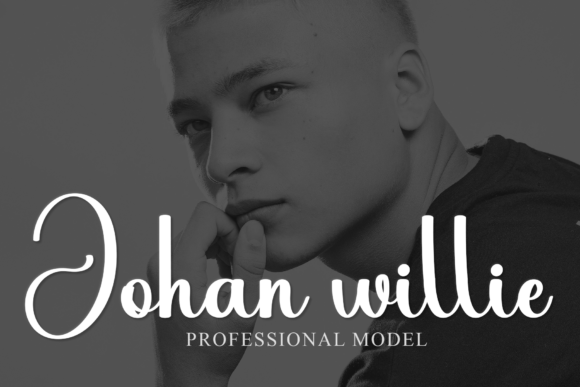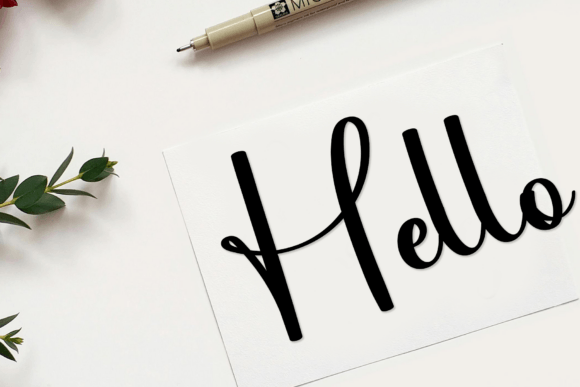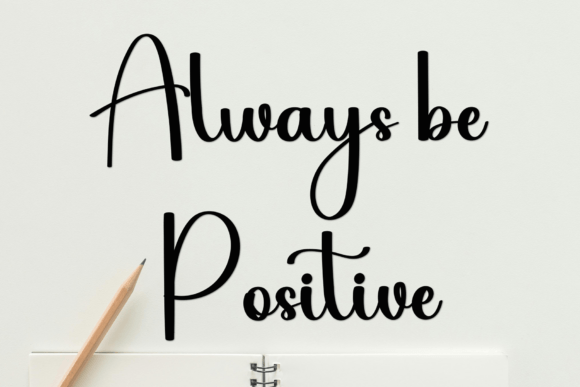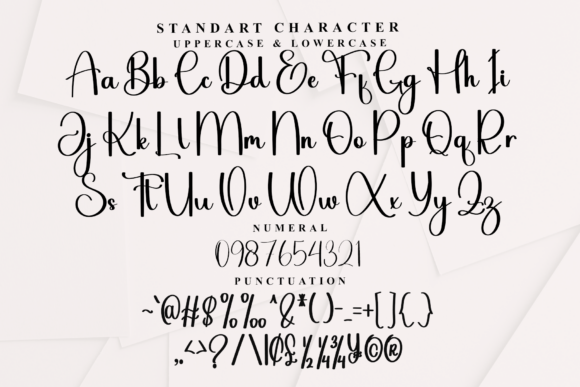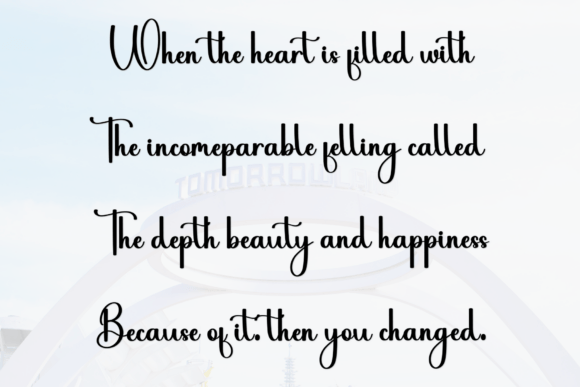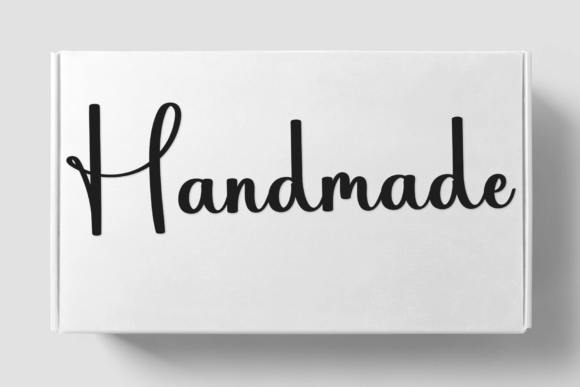
Introducing Function Font: The Perfect Holiday Companion for Designers and Crafters
Are you looking for a typeface that embodies the joy and magic of the holiday season? Look no further than Function Font, a festive and happy font designed to bring a touch of charm to your designs. With its decorative elements and unique flair, this font is perfect for adding a cheerful and nostalgic atmosphere to your words.
What Makes Function Font So Special?
Function Font is more than just a typeface – it’s an experience. Its decorative elements and unique design make it perfect for a variety of holiday-themed projects, from greeting cards and gift labels to festive posters and social media graphics. Whether you’re a designer, crafter, or DIY enthusiast, this font is sure to become your go-to companion for the holiday season.
Function Font is specifically designed with the holiday season in mind. Its playful and cheerful design makes it perfect for a variety of projects, including:
- Greeting cards: Add a personal touch to your holiday cards with Function Font’s unique and decorative elements.
- Gift labels: Make your gifts stand out with custom labels featuring Function Font’s festive design.
- Holiday-themed posters: Create eye-catching posters for your holiday events or promotions with Function Font’s bold and cheerful design.
- Social media graphics: Add a touch of holiday cheer to your social media graphics with Function Font’s playful and decorative elements.
Function Font is PUA (Private Use Area) coded, which means you can access all the amazing glyphs and ligatures easily. This makes it simple to incorporate the font’s decorative elements into your designs, even if you’re not a skilled typographer.
What is PUA Coding?
PUA coding is a system that allows font designers to include additional characters and glyphs in their fonts. This means that Function Font includes a range of special characters and ligatures that can be used to add a touch of personality to your designs.
Function Font offers a range of benefits for designers and crafters, including:
- Easy access to decorative elements: With Function Font’s PUA coding, you can easily access the font’s decorative elements, even if you’re not a skilled typographer.
- Unique and festive design: Function Font’s unique and festive design makes it perfect for holiday-themed projects.
- High-quality typography: Function Font is designed to provide high-quality typography, even at small sizes.
- Versatility: Function Font can be used for a wide range of projects, from greeting cards and gift labels to posters and social media graphics.
Tips for Using Function Font
Here are a few tips for getting the most out of Function Font:
- Experiment with different sizes: Function Font is designed to be versatile, so don’t be afraid to experiment with different sizes and styles.
- Combine with other fonts: Function Font can be paired with other fonts to create a unique and eye-catching design.
- Use the font’s decorative elements: Function Font’s decorative elements are designed to add a touch of personality to your designs, so don’t be afraid to use them.
Function Font is the perfect companion for designers and crafters looking to add a touch of holiday cheer to their designs. With its decorative elements, unique flair, and PUA coding, this font is sure to become your go-to typeface for the holiday season. So why wait? Download Function Font today and start creating your own festive and happy designs!